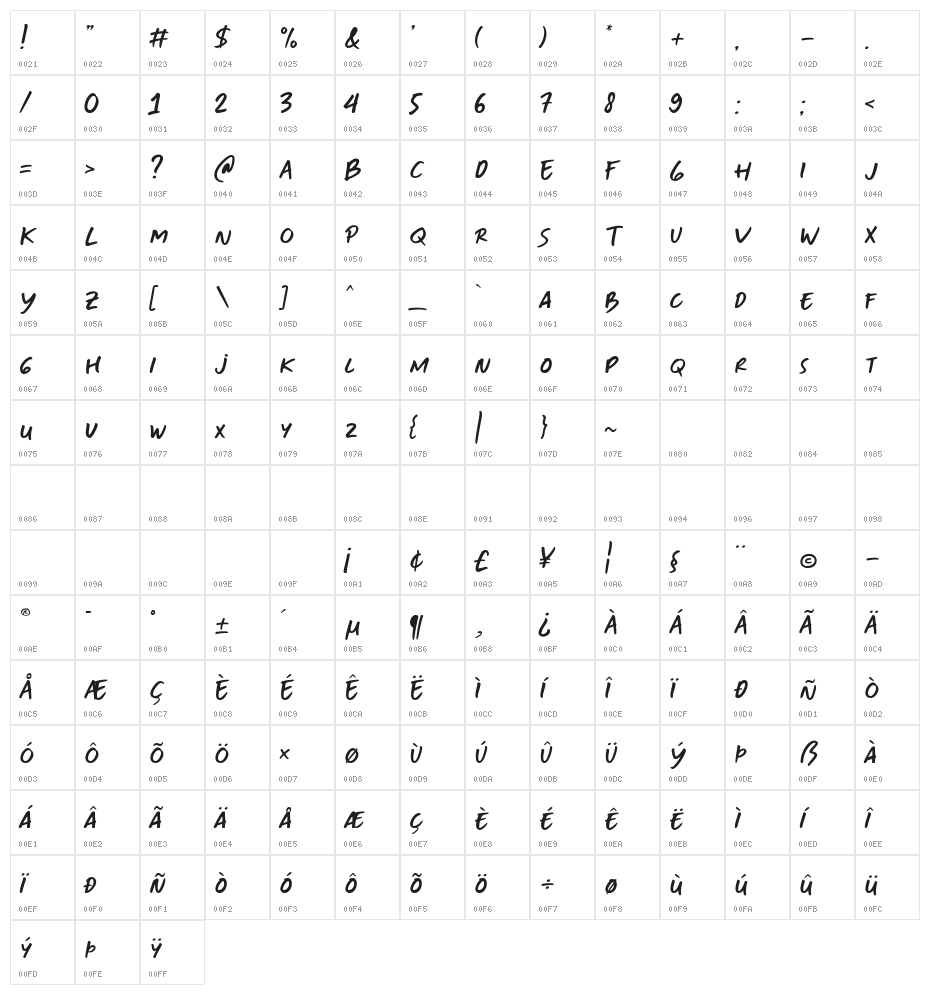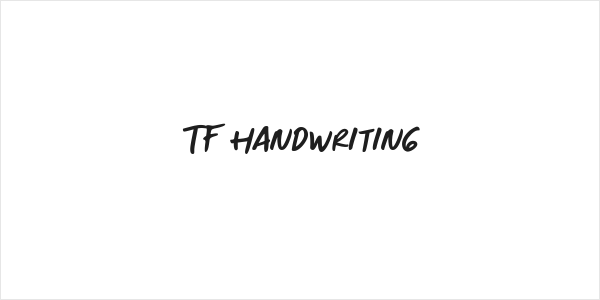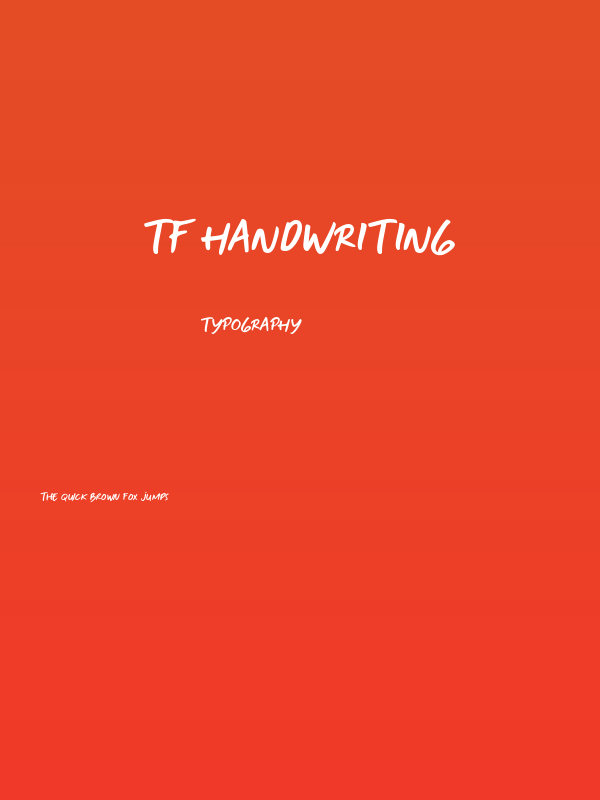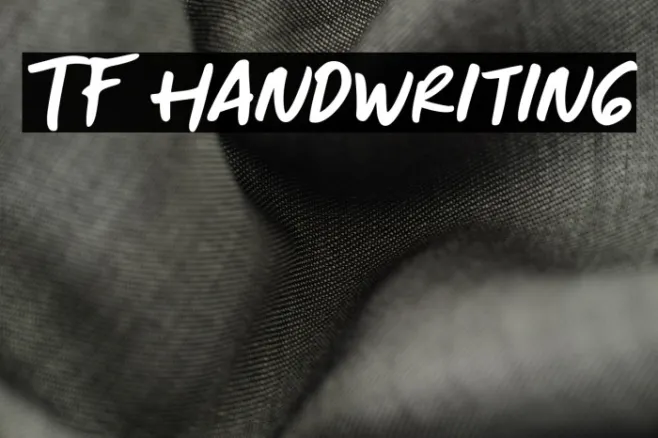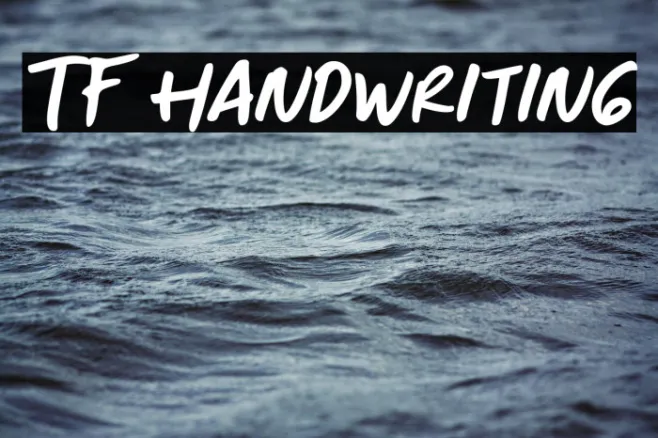
TF Handwriting Font
TF Handwriting Description
This font exudes a casual and playful handwritten style, characterized by its smooth, flowing curves and slightly irregular strokes that mimic natural handwriting. The letters are bold and dynamic, with a consistent thickness throughout, giving it a lively and energetic appearance. The uppercase and lowercase letters maintain a harmonious balance, while the numerals and special characters integrate seamlessly with the overall design. Its informal and friendly nature makes it suitable for projects that require a personal touch or a creative flair.
TF-HANDWRITING UPPERCASE
TF-HANDWRITING LOWERCASE
TF-HANDWRITING OTHER CHARS
| Proposed Projects | Ideal for greeting cards, invitations, personal branding, and creative projects that require a personal touch. |